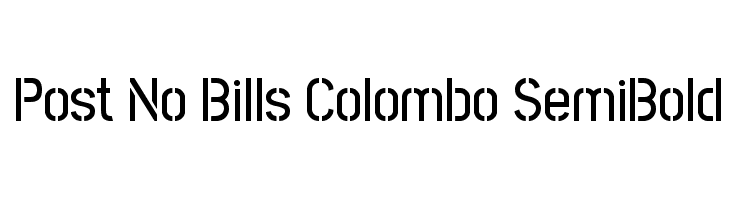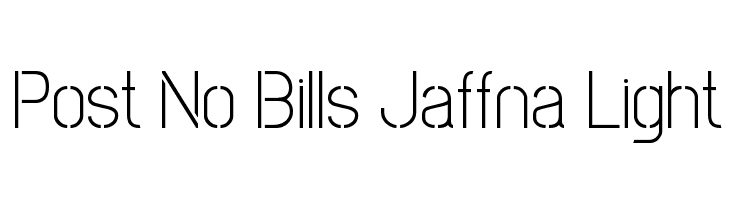
A bold, geometric font with a modern, industrial feel.
A modern, geometric sans-serif font with clean lines and uniform stroke width.
A modern, geometric sans-serif font with clean lines and consistent stroke width.
A modern, geometric sans-serif font with clean lines and uniform stroke width.
A bold, geometric font with a modern, industrial style and distinctive cut-out sections.
A bold, geometric stencil typeface with a modern, industrial aesthetic.
A bold, stencil-like font with high contrast and industrial appeal.
A modern, geometric font with clean lines and a minimalist design.
A modern, geometric stencil font with clean lines and sharp angles.
A modern, geometric sans-serif font with clean lines and consistent stroke width.